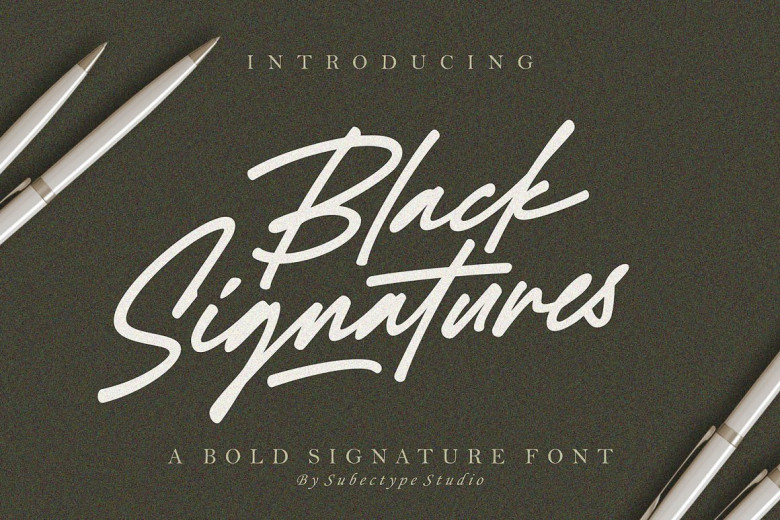
Black Signature Font
Bold Signature Font Script ‘Black Signature is an eye-catching script font with a natural flow, making it perfect for personal branding. Originally intended as part of their creation for this purpose, this font serves multiple uses; such as advertising campaigns, personal branding, photography projects or signatures.
This font can accommodate a range of languages, including European and Asian Latin scripts. Furthermore, this font comes equipped with all the characters that may be needed – punctuation marks, numbers and any necessary symbols are all present here.